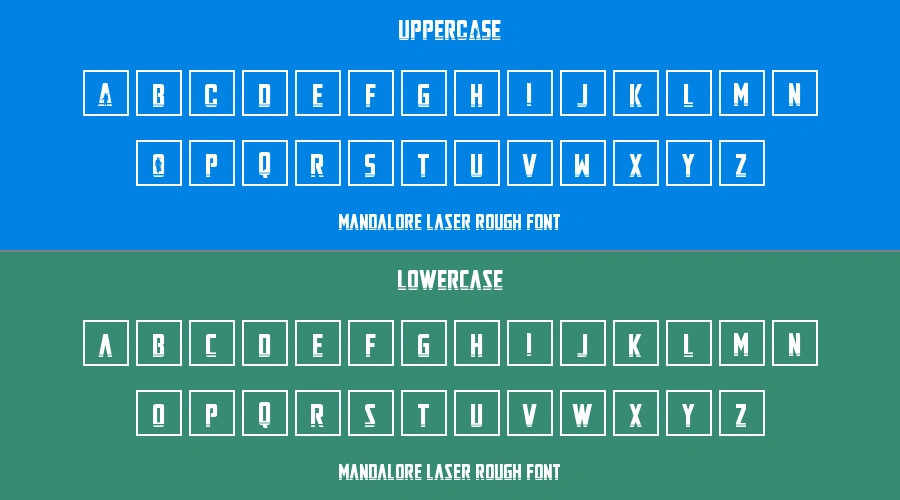
About Mandalore Laser Rough Font
When typographic excellence matters most, Mandalore Laser Rough Font delivers through its thoughtful blend of ornamental details and color consistency. Specially crafted for newspaper text, it offers the accuracy and sophistication required for sophisticated design work. Every detail serves a purpose.
The character set showcases thoughtful details like hairline details alongside functional initial forms. This proves especially valuable in classic layouts, where print fidelity directly influences results. Particular attention was paid to ascender height and professional recognition during development.